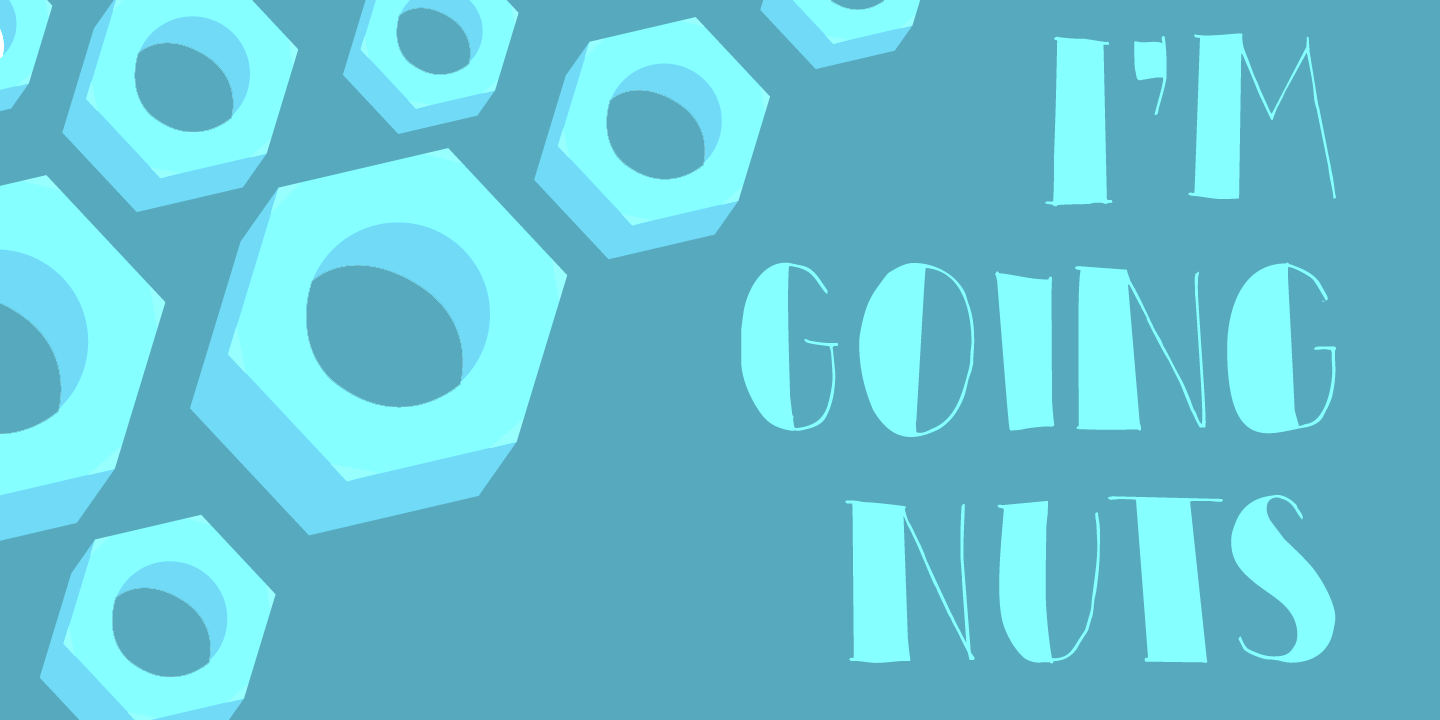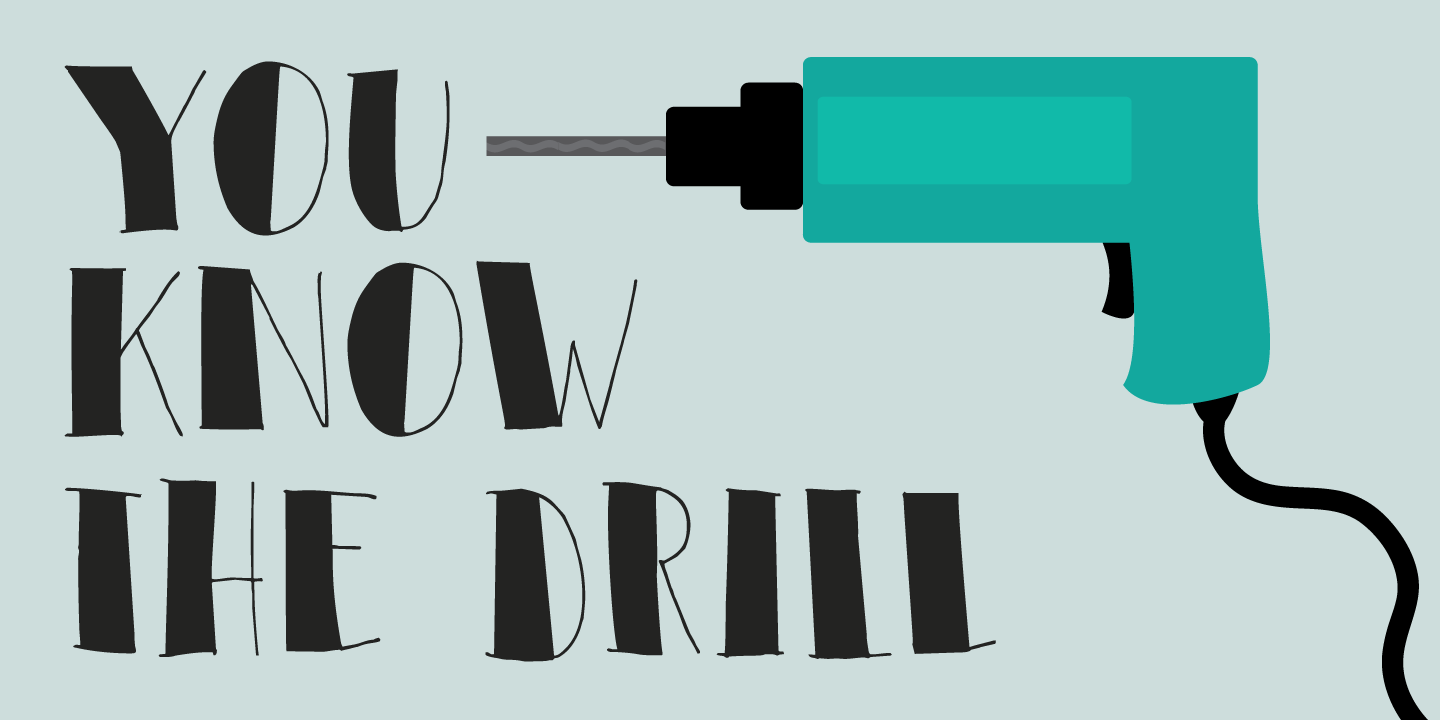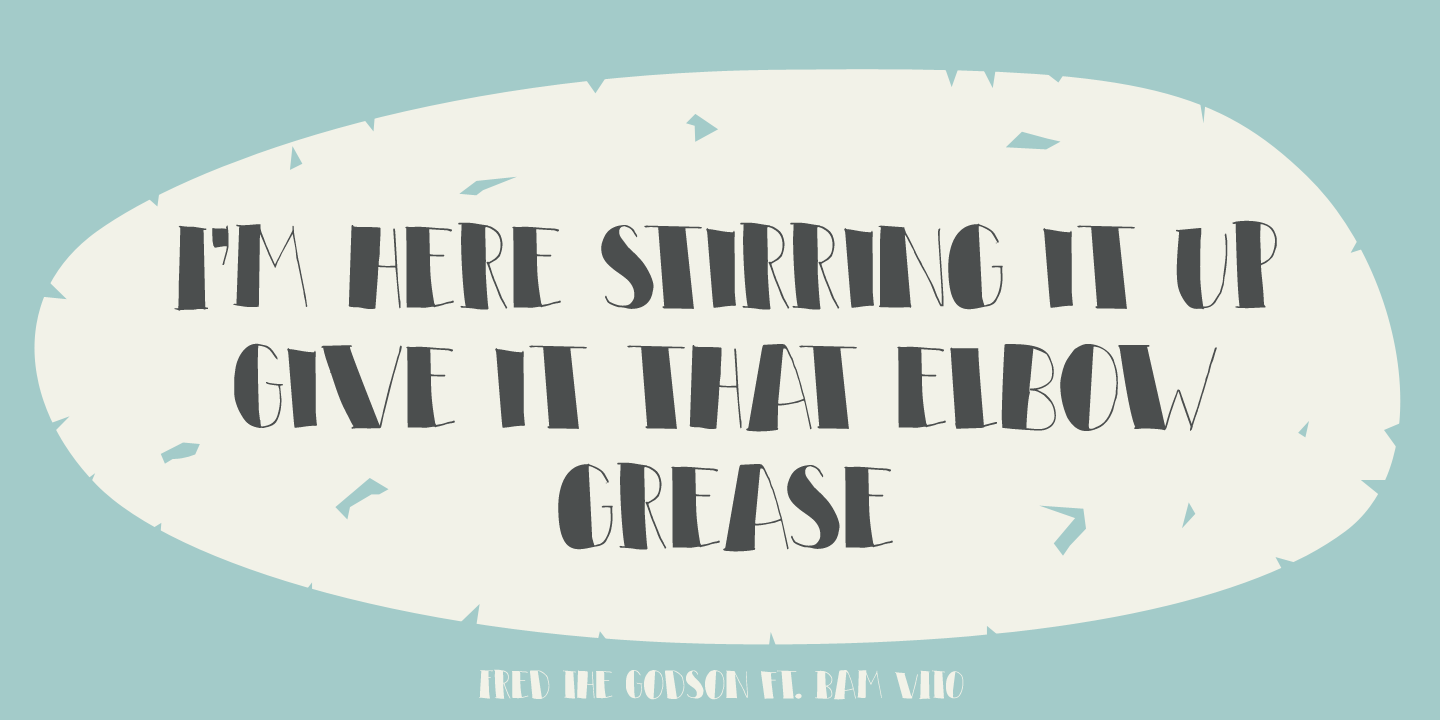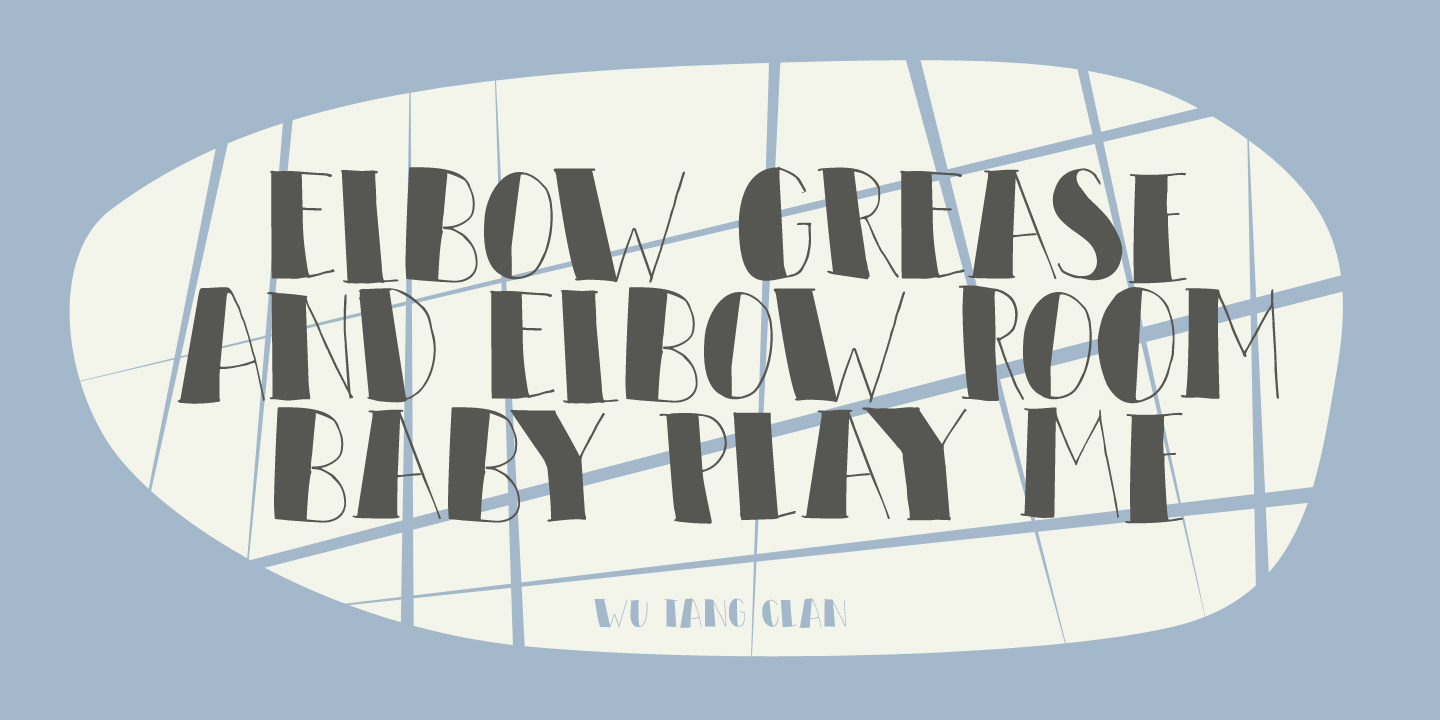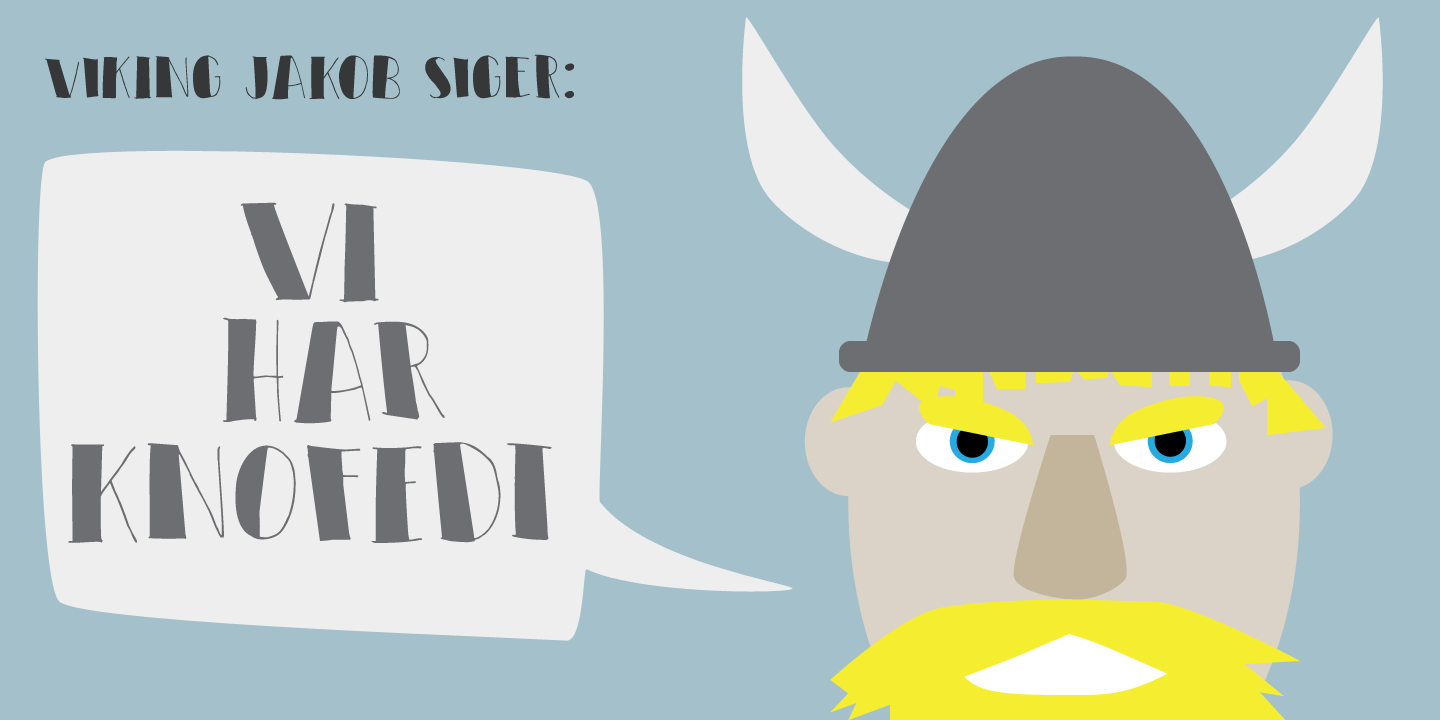
Elbow Grease
Elbow Grease was made with, yes, you've guessed it: Elbow Grease! It started off as a grungy font, but it didn't look right, so I reworked all the glyphs. Then I forgot to save the font, so I had to start all over again. Naming a font was never this easy!
Elbow Grease is a didone-ish font with some seriously warped glyphs, a lot of panache and a ?get-it-done? attitude. Also comes with a toolkit full of diacritics.